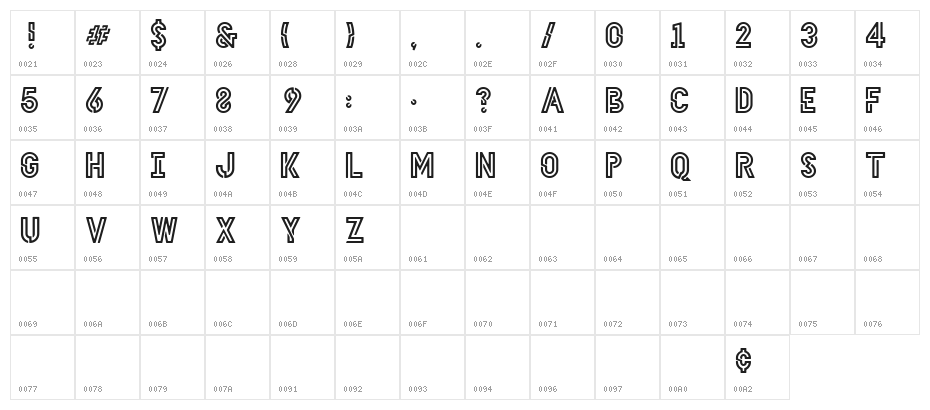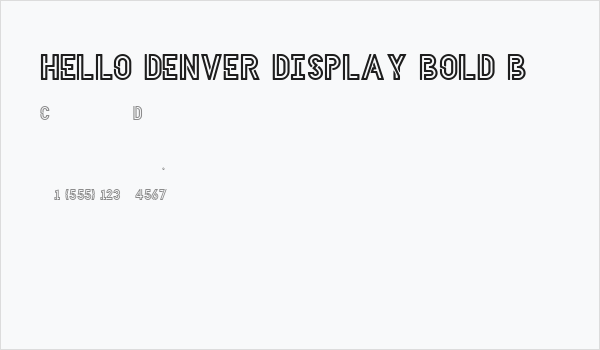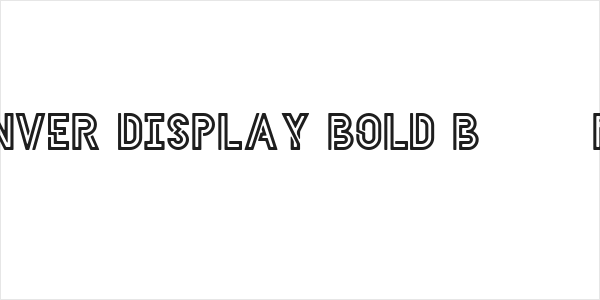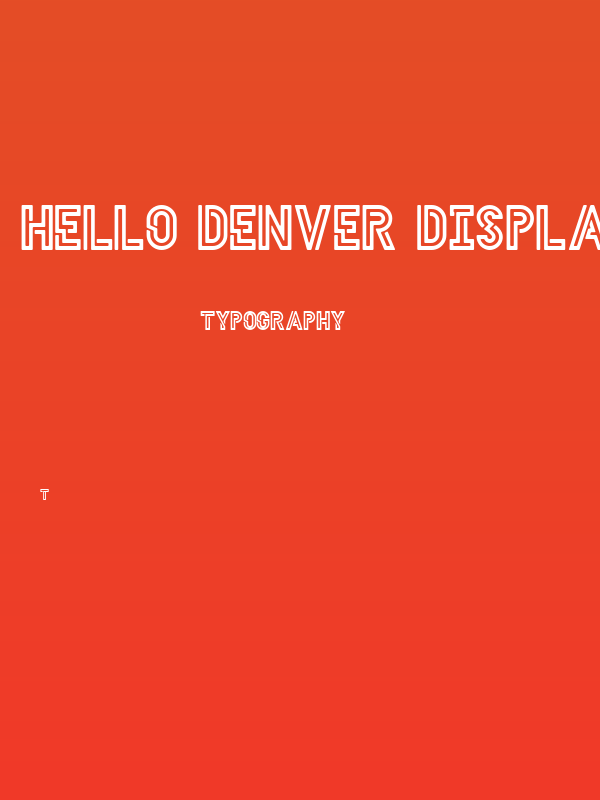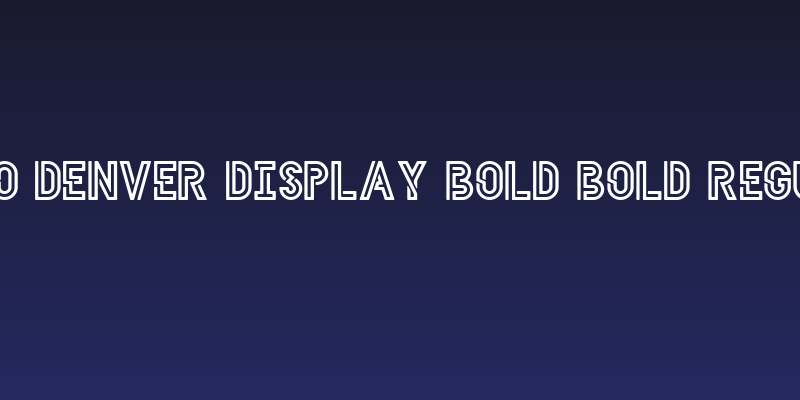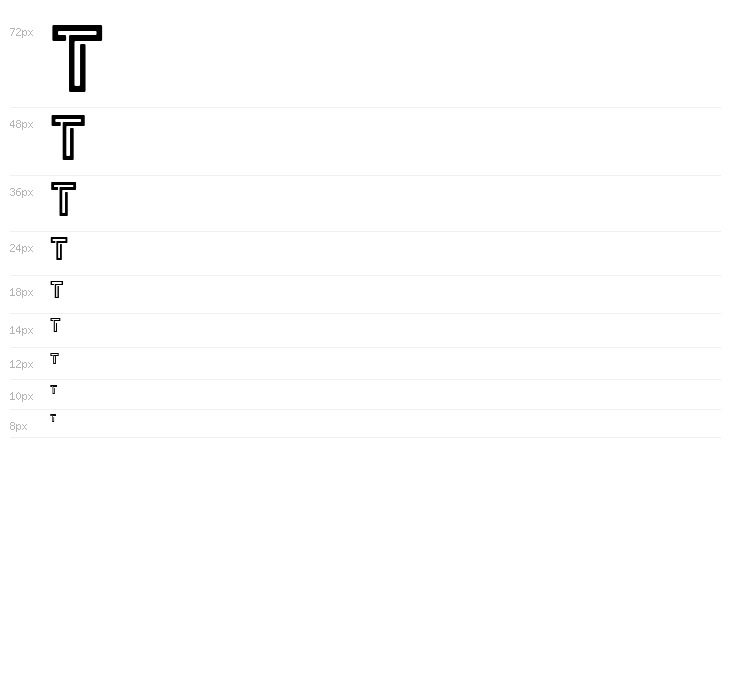
HELLO DENVER DISPLAY BOLD Bold Regular Font
HELLO DENVER DISPLAY BOLD Bold Regular Description
This font features a bold, geometric design with a distinct outline style. The uppercase letters are uniform in height, with sharp angles and clean lines that create a modern and impactful appearance. The numerals and special characters follow the same bold and outlined aesthetic, ensuring consistency across all characters. The font's style is reminiscent of urban and industrial themes, making it suitable for projects that require a strong visual presence. Its unique outline effect adds depth and dimension, making it stand out in various design contexts.
Proposed ProjectsIdeal for headlines, posters, branding, and any project requiring a strong visual impact.